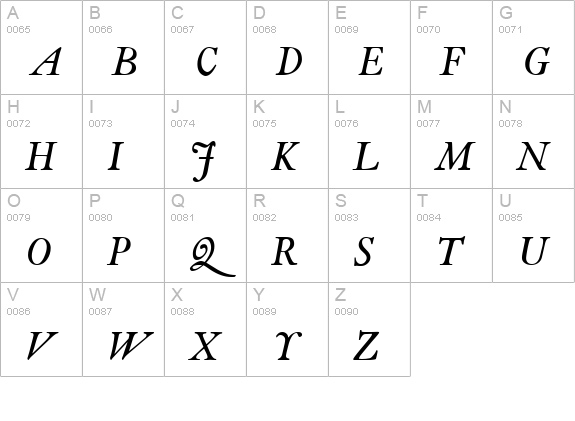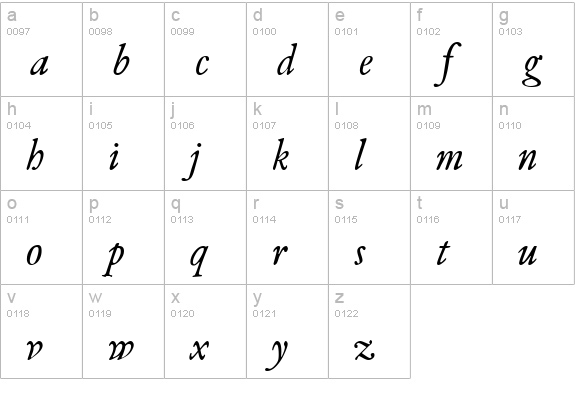
VanityBook-Italic Font Details
VanityBook-Italic is a distinctive, italic variant in the VanityBook typeface family \xE2\x80\x94 well suited to design and typography projects.
VanityBook-Italic font is a sleek and elegant typeface that exudes sophistication and style. Its italic design adds a touch of flair to any text, making it perfect for projects that require a touch of class. This font is versatile and can be used for a variety of design purposes, from branding to editorial layouts. The best part? VanityBook-Italic font is completely free to download at FontsMarket.com. Whether you're a designer looking to add a refined touch to your projects or a business owner in need of a stylish font for your marketing materials, VanityBook-Italic font is the perfect choice. Download it now and elevate your designs with this exquisite typeface.